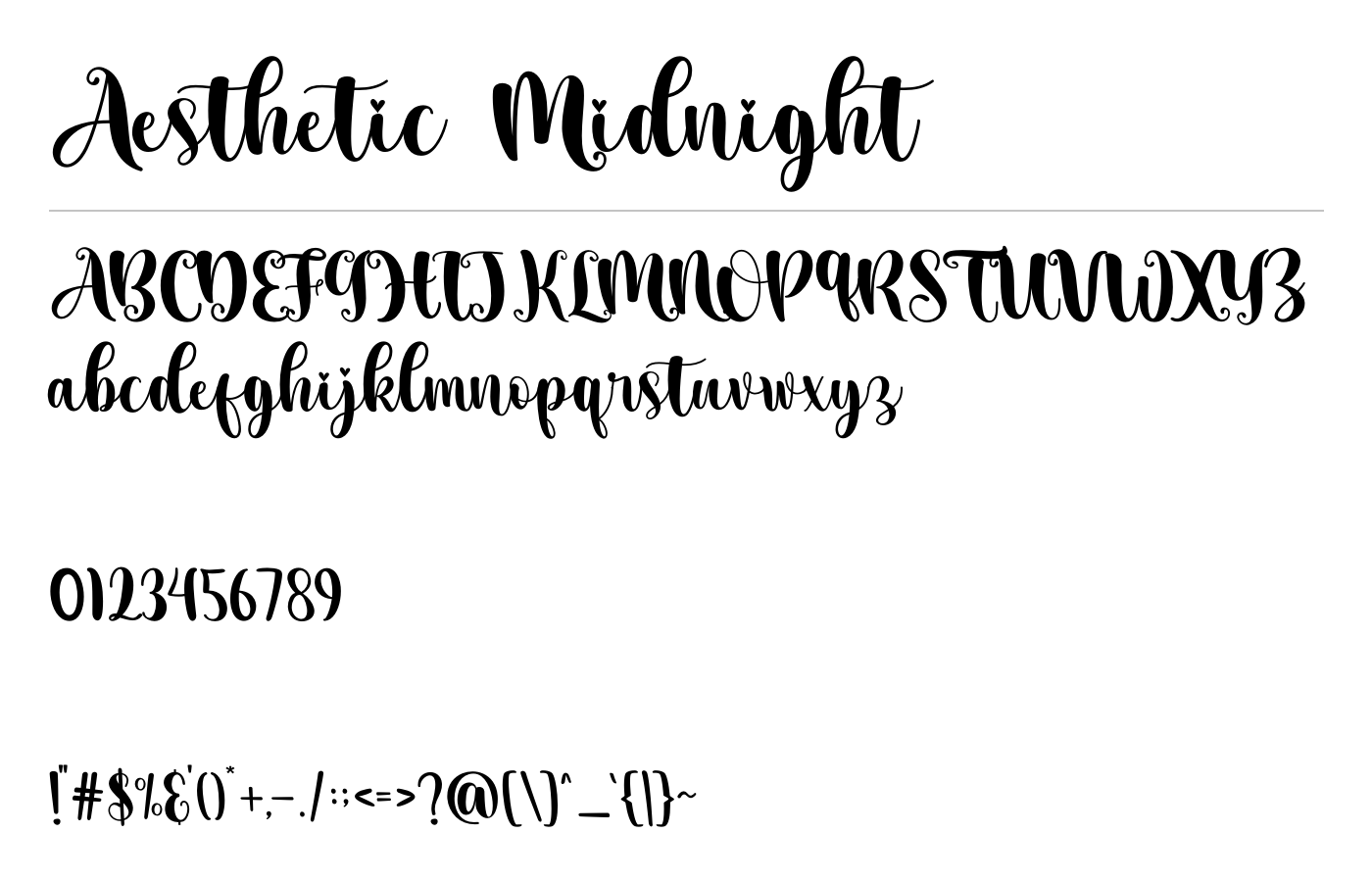
Aesthetic Midnight is a decorative script font with a bold, lively feel and elegant swashes that give it a playful yet sophisticated personality. Its high contrast strokes, smooth curves, and charming flourishes make it perfect for creative branding, invitations, and headline use where a touch of stylish flair is desired. This font works well for fashion, beauty, and lifestyle projects that want to convey warmth and artistic elegance.
Aesthetic Midnight Font
About Aesthetic Midnight Font
| Font family | Aesthetic Midnight Font |
| Designer | Fian Muslim Aditya |